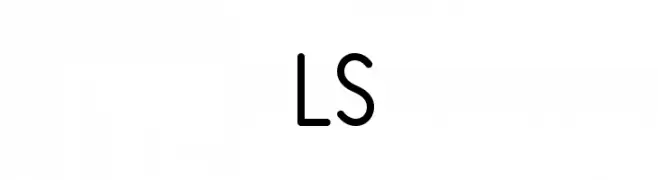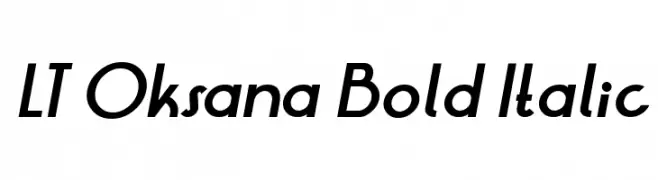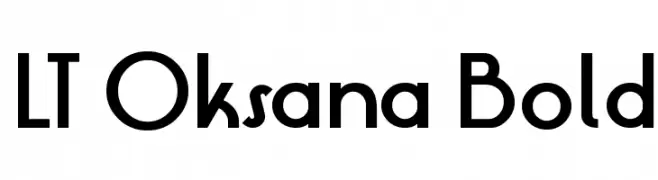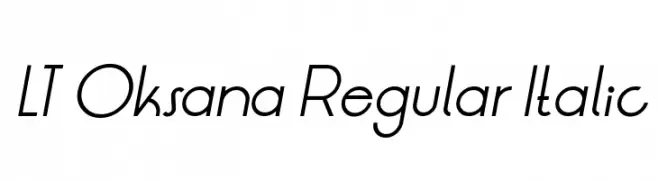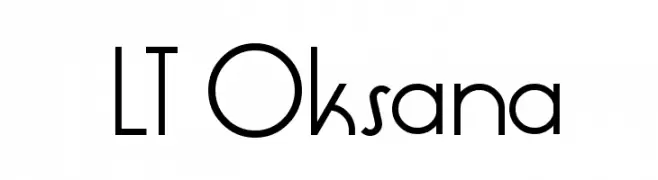
A modern, geometric font with rounded edges and consistent strokes.
A sleek, modern font with geometric and art deco influences.
A bold, geometric font with art deco influences and clean lines.
A bold, italicized font with dynamic and flowing letterforms.
A sleek, modern italic font with clean lines and dynamic elegance.